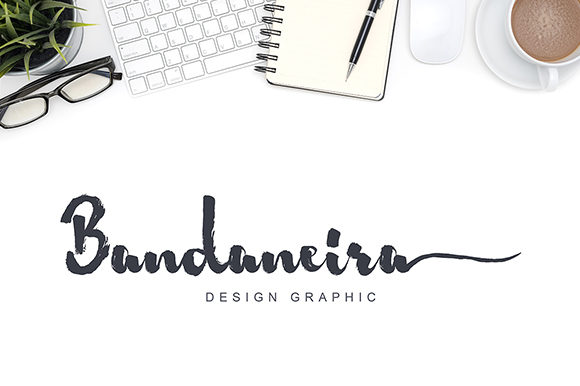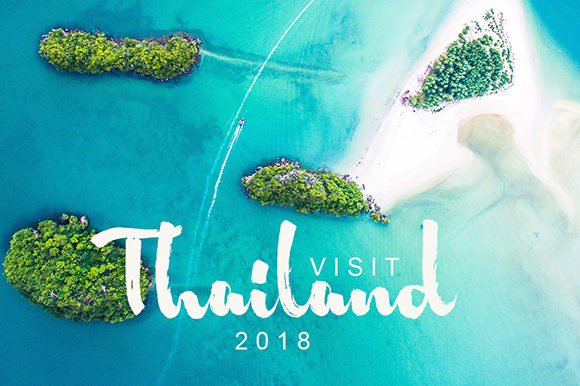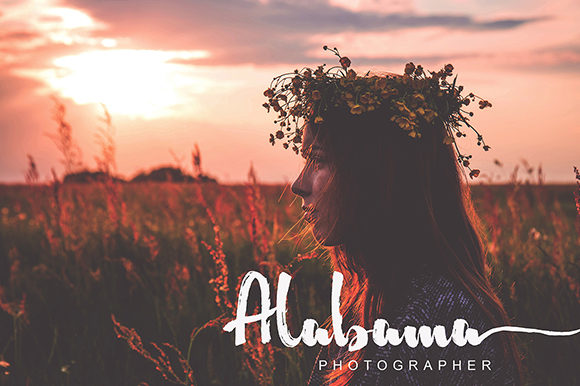
HomeScript FontsMelinda Font Script Fonts Melinda Font FacebookXPinterestWhatsApp Melinda Font Poster 2 Melinda Font Poster 3 Melinda Font Poster 4 About Melinda Font Melinda is a unique and modern brush font with a beautiful feel. It will effortlessly elevate any design idea! DOWNLOAD ON CREATIVE FABRICAThis font is sold and delivered by Creative Fabrica. Font Canyon may earn a commission if you buy through this link. People also explored Soluto Font Maguira Script Font Charlotte Brush Font Bruce Double Pica Casidy Font Kustina Script Font Kimberly Font Mentally Font Alexandria Font 345 0 TagsMelinda Font Previous articleMattea FontNext articleMottura Font LEAVE A REPLY Cancel reply Comment: Please enter your comment! Name:* Please enter your name here Email:* You have entered an incorrect email address! Please enter your email address here Website: Save my name, email, and website in this browser for the next time I comment. Personal Use Free Millea Personal Use Free Read more about this font Retro Free Personal Use Free Read more about this font Short Message Personal Use Free Read more about this font Boston Traffic Personal Use Free Read more about this font BLOG Where to Buy American Fonts Online in 2024 Where to Buy American Fonts Online: The Ultimate Guide for 2024 Looking for the perfect American font to elevate your design projects? You're in the... Free vs Paid Fonts: Why Investing in Premium Fonts Is Worth It Elegant Wedding Invitation Fonts – Handwritten & Script Fonts Top 10 Handwritten Fonts That Elevate Your Designs